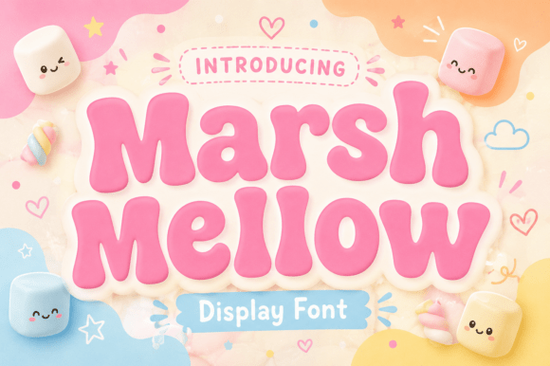
The Marshmellow Font is a chunky, retro-style display typeface inspired by the bold, playful aesthetic of the 1970s. With its pillowy characters and soft, curvy outlines, it brings a warm, nostalgic feel to any design project. If you're looking for a typeface that feels fun without being childish, this one hits that balance nicely. I've been exploring different retro display fonts for my own projects lately, and Marshmellow stands out for its approachable, rounded letterforms.
What Does the Marshmellow Font Actually Look Like?
Marshmellow features thick-set, rounded characters with smooth curves and soft edges. Think of the kind of lettering you'd see on vintage candy packaging or 70s-era movie posters bold, warm, and full of personality. The letterforms have a puffy, pillowy quality that gives text a friendly, approachable appearance.
It works as a display font, meaning it's designed for headlines, titles, and short text rather than long paragraphs. The chunky weight makes it readable at larger sizes, and the retro styling adds instant character to designs.
What Can You Use This Font For?
This is where Marshmellow really shines. Its versatile retro charm works across a wide range of creative projects:
- Logo design Great for brands that want a warm, vintage personality
- Packaging Especially for food products, cosmetics, or artisan goods
- Social media graphics Bold enough to grab attention in a busy feed
- Print-on-demand products T-shirts, mugs, tote bags, and stickers
- Event invitations Birthday parties, retro-themed events, or baby showers
- Blog headers and website banners
If you sell on platforms like Redbubble, Etsy, or Merch by Amazon, a Marshmellow Font style can help your designs stand out. Pairing it with simple illustrations or bold color blocks creates an eye-catching result without a lot of extra effort.
How Does Marshmellow Compare to Other Retro Fonts?
There's no shortage of retro display fonts available, so how does Marshmellow stack up? Here are a few comparisons worth considering:
If you want something with a similar vintage vibe but slightly more structured, the Retro Magic typeface is another chunky display option worth looking at. For designers who prefer a stacked, layered approach, there are fonts that let you create multi-line headlines with a retro twist.
On the other hand, if you're after something more grungy and textured, Funky Grunge styling takes the retro concept in a rougher, edgier direction. And for projects that need a more elegant retro feel, a script-inspired option might be a better fit.
What sets Marshmellow apart is its softness. Where many retro fonts lean into sharp angles or distressed textures, Marshmellow keeps things round, smooth, and inviting. It's retro without feeling aggressive more ice cream parlor than motorcycle garage.
Who Is This Font Best For?
Marshmellow works particularly well for:
- Small business owners building a brand identity with a playful, approachable personality
- Print-on-demand sellers looking for bold, readable type for merchandise
- Crafters making greeting cards, party supplies, or scrapbook layouts
- Social media managers who need attention-grabbing typography for posts and stories
- Wedding and event planners designing retro-themed stationery
It's not ideal for body text, formal documents, or projects that require a serious, corporate tone. This font has a clear personality, and it leans toward the fun side of the spectrum.
What Fonts Pair Well With Marshmellow?
A display font like Marshmellow works best when paired with a clean, simple body font. Here are some pairing ideas:
- A clean sans-serif Fonts like Montserrat or Poppins balance Marshmellow's chunkiness with modern simplicity
- A handwritten script For invitations or social posts, pairing with a casual script adds warmth
- A minimal serif A thin, elegant serif creates a nice contrast for packaging or editorial layouts
The key is to let Marshmellow do the heavy lifting for headlines and use something understated everywhere else. Mixing two bold display fonts together usually creates visual clutter, so keep your pairings simple.